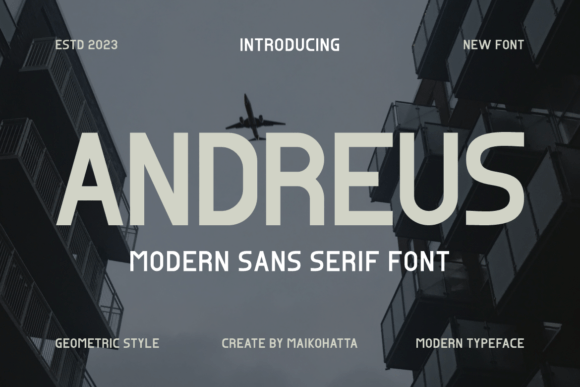
Presenting the Andreus Font, a sans serif masterpiece crafted with finesse to redefine your typographic horizons. This font exudes a captivating rustic charm, evoking the warmth of weathered wood and the raw beauty of nature's textures.
But beyond its enchanting facade lies a font of unparalleled versatility. Andreus Font seamlessly adapts to a myriad of design contexts, infusing your creations with both timeless elegance and modern sophistication. Its clean, professional strokes lend an air of refinement, while its inherent simplicity and visual appeal make it a joy to behold.
Embrace the Andreus Font and let your imagination soar. Its versatility makes it an ideal choice for a wide range of design endeavors, from captivating logos to enchanting invitations, from stunning posters to mesmerizing branding. Whether you seek to create a rustic masterpiece or a contemporary marvel, Andreus Font is your perfect companion.
Join the ranks of discerning designers who have discovered the allure of Andreus Font. Let its enchanting spirit ignite your creativity and leave an indelible mark on the world of design.